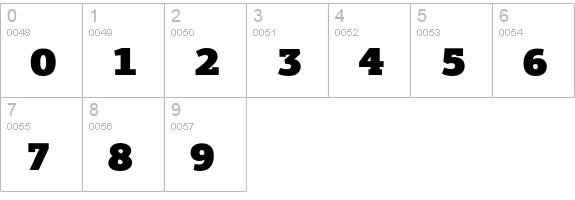
PFCentroSlabPro-UBlack is a bold and striking typeface that exudes elegance and sophistication. With its strong and commanding presence, this font is perfect for making a statement in headlines, titles, and branding projects. The sturdy slab serifs add a touch of modernity to its classic design, making it versatile for both traditional and contemporary applications. The PFCentroSlabPro-UBlack font is available for free download at FontsMarket.com, where you can easily access this premium quality typeface without any cost. Whether you're working on print materials, digital designs, or web projects, PFCentroSlabPro-UBlack offers a unique and impactful visual appeal that is sure to make your text stand out. Don't miss out on the opportunity to enhance your creative projects with this exceptional font that combines style, strength, and sophistication.